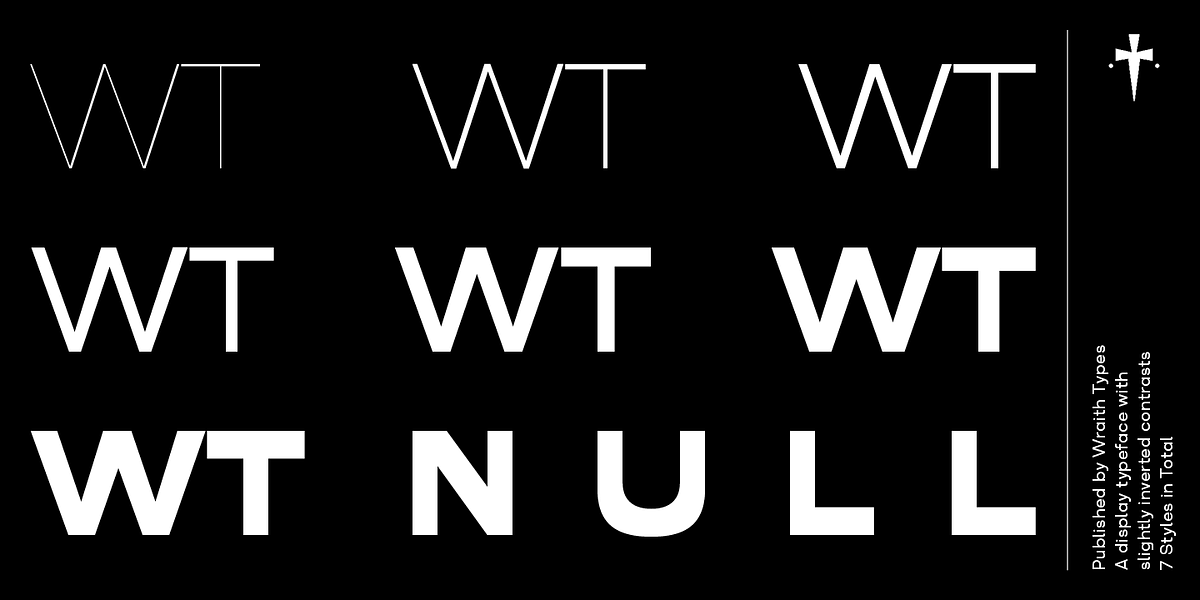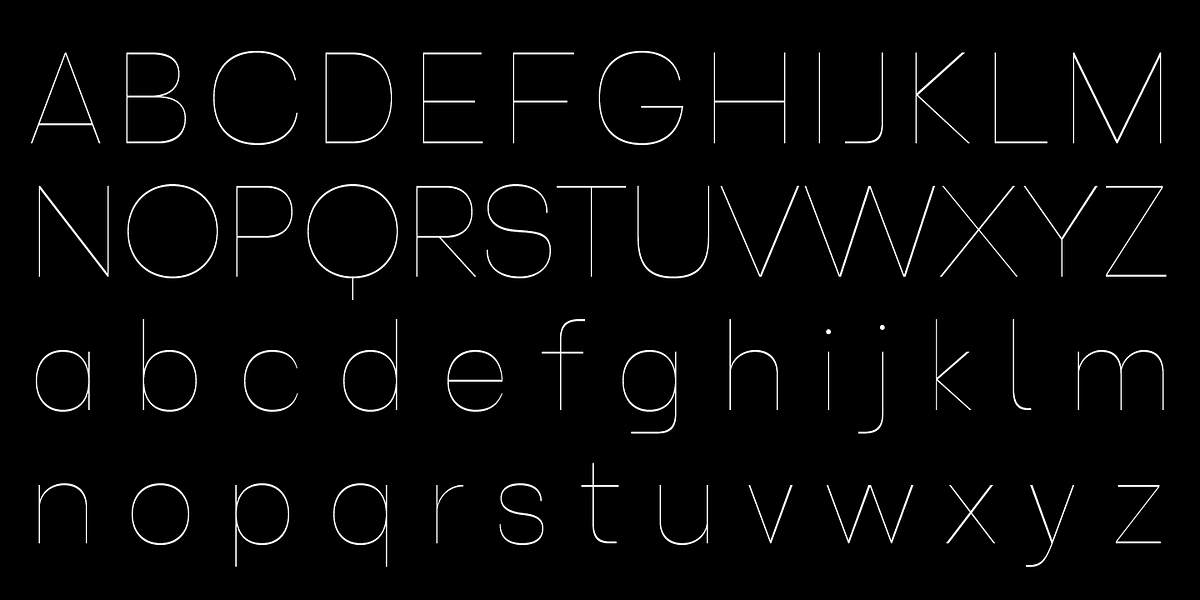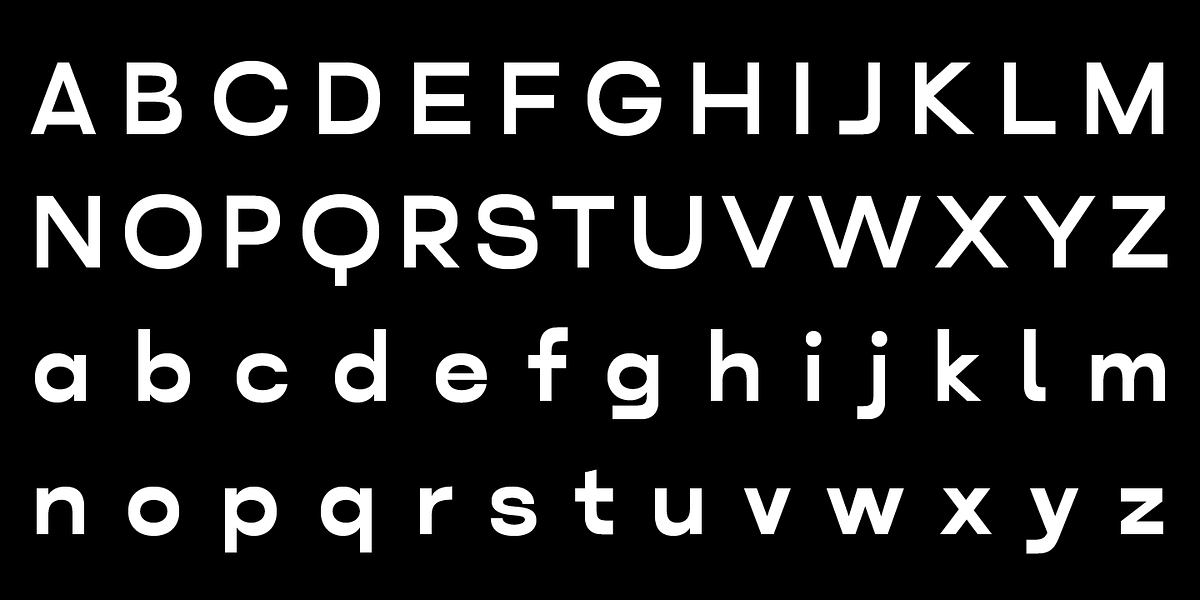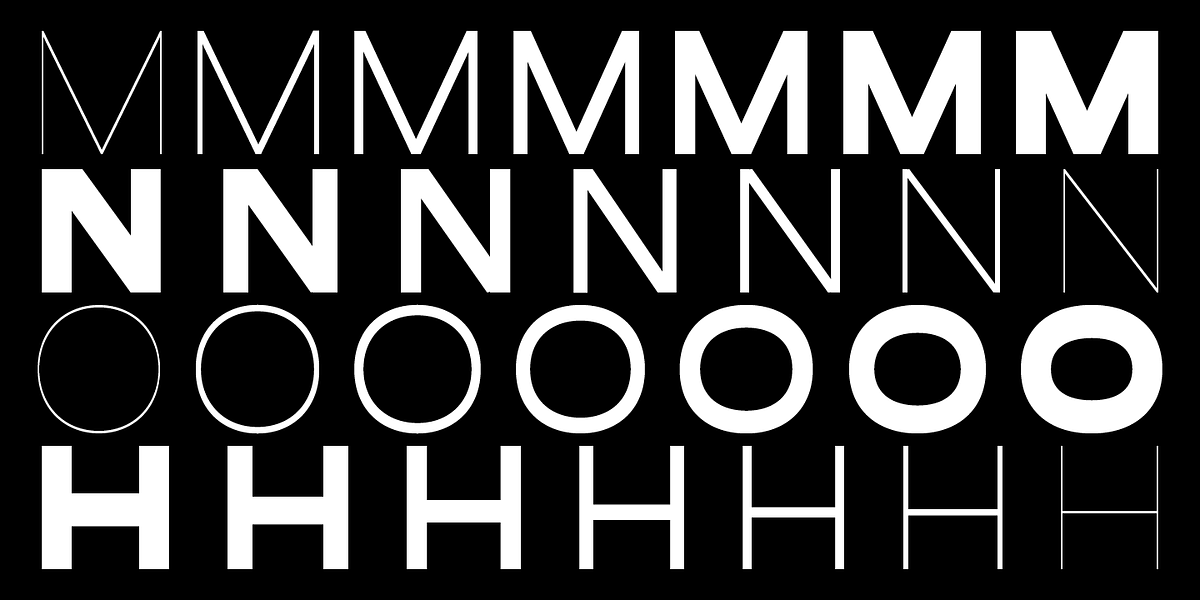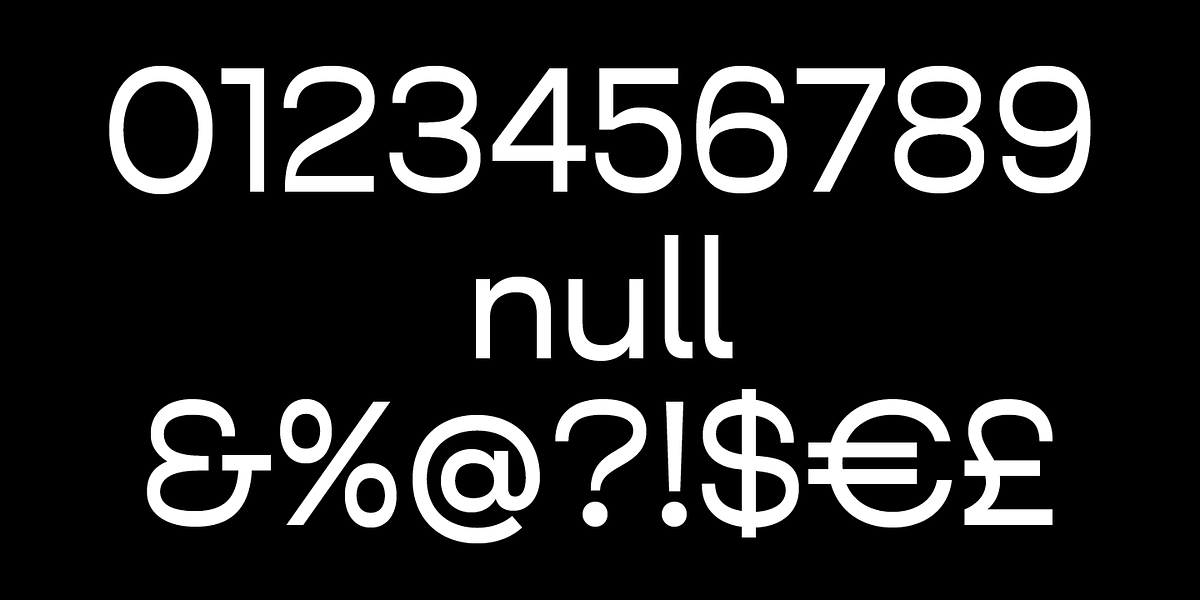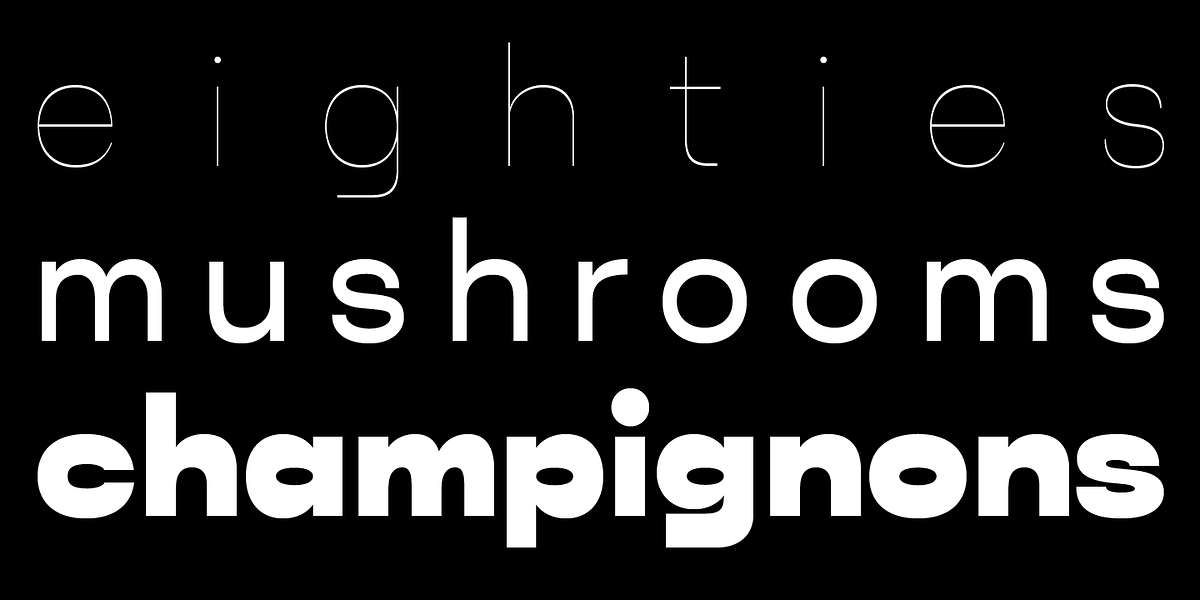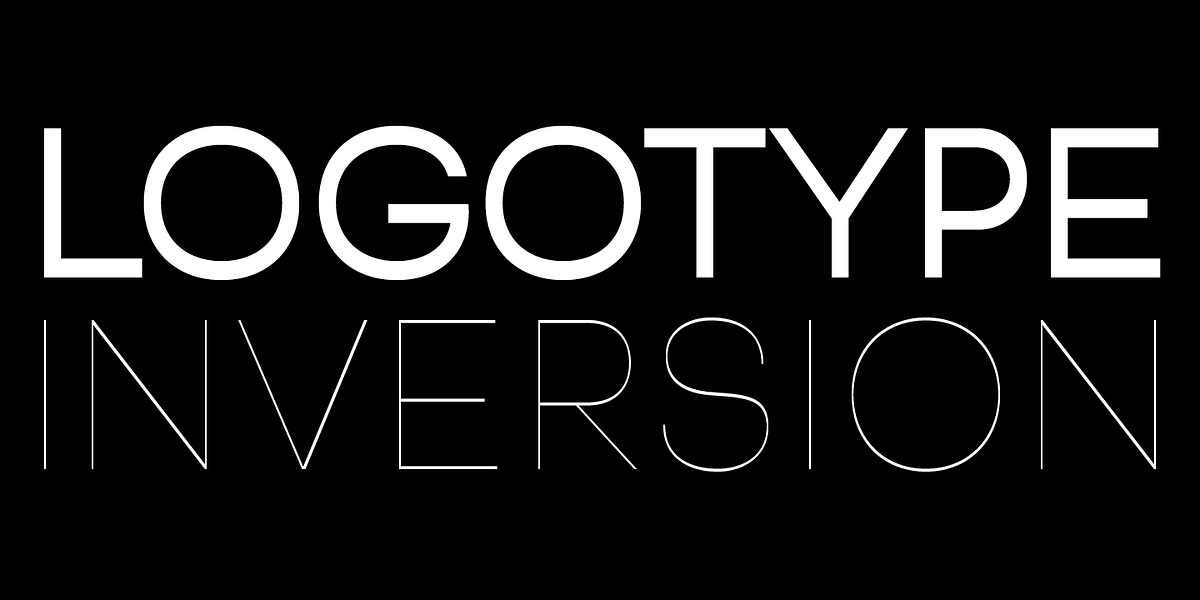
WT Null
WT Null is a modern sans serif typeface inspired by 1980s Swiss design. Its defining characteristic is its slightly inverted contrast – a departure from the typical high contrast seen in many display fonts. This unique feature, combined with subtly extended proportions, gives WT Null a distinctive visual presence. The font strikes a balance between being a quirky and eye-catching display face and a functional grotesque suitable for various applications.